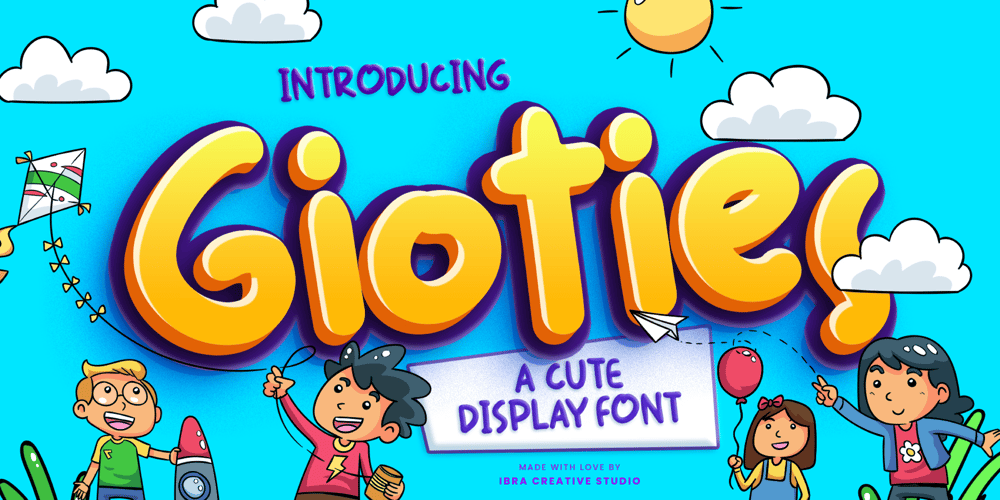
Gioties Font Family was designed by Roisatul Azizah and published by IbraCreative. Gioties contains 1 styles and family package options. Gioties is an adorable display font that radiates an irresistible charm and playfulness. With its cute and whimsical letterforms, Gioties encapsulates the essence of innocence and joy. The rounded edges and friendly curves of each letter exude a sense of approachability, making it the perfect choice for designs that require a touch of sweetness and lightheartedness. Gioties effortlessly adds a delightful flair to children’s books, playful merchandise, and cheerful branding. Its unique character variations and vibrant energy create a captivating visual experience, ensuring that any project adorned with Gioties becomes a canvas of endearing cuteness and boundless creativity.